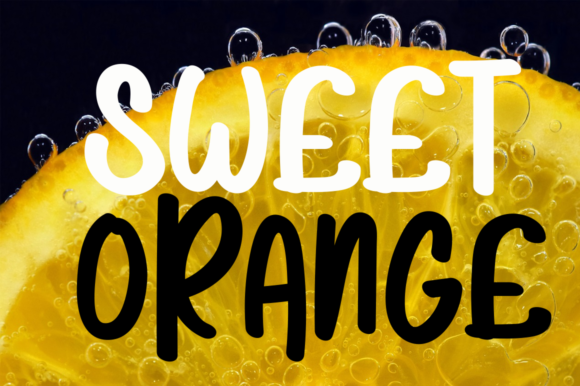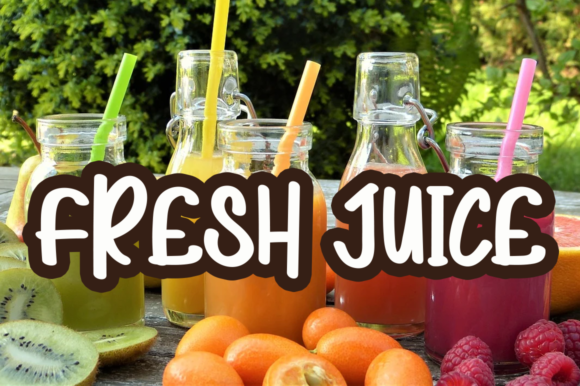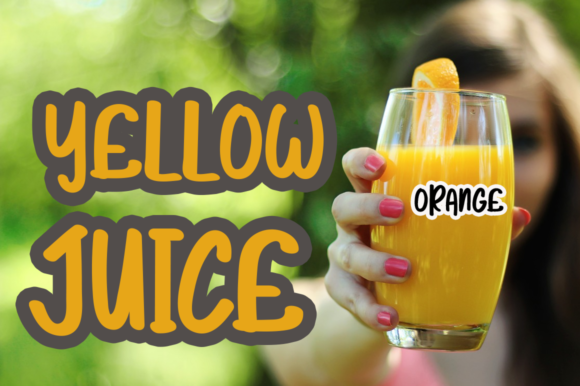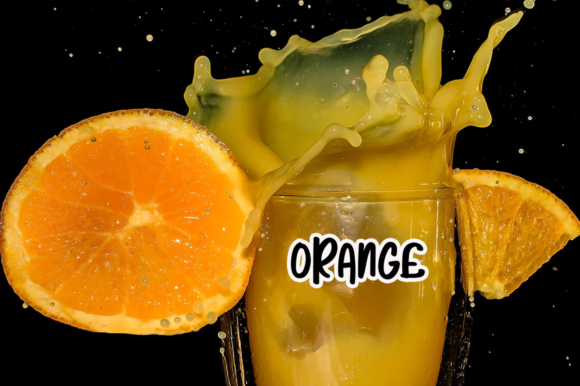
Discover the Refreshing Taste of Albania Juice Font
Have you ever stared at a blank page, feeling stuck and uninspired? That’s where the magic happens, and the right font can make all the difference. For me, it’s when the creative juices start flowing, and I stumble upon the perfect typography to bring my idea to life.
Enter the Albania Juice Font, a charming handwritten font that’s as relaxed as a summer afternoon. Designed to evoke a sense of natural simplicity, this font is perfect for adding a touch of personality to your designs. Whether you’re a seasoned designer or just starting out, the Albania Juice Font is a valuable addition to your toolkit, guaranteed to elevate your creations and leave a lasting impression.
Albania Juice Font Key Features
- Font Family: Albania Juice Font is a sans-serif font family with 4 styles: Light, Regular, Medium, and Bold.
- Language Support: Albania Juice Font supports a wide range of languages, including Latin-based languages, Cyrillic, and Greek.
- Unique Characteristics: Albania Juice Font features a unique blend of modern and traditional design elements, with a distinctive x-height and a range of subtle ligatures and swashes.
Albania Juice Font Review
Overall, I found the Albania Juice Font to be a unique and stylish addition to any design project. The font is a great blend of modern and traditional elements, making it perfect for creative projects.
- The font’s dynamic energy is contagious, making it perfect for projects that require a sense of movement and vitality.
- The elegant lines and rounded edges create a visually appealing and friendly atmosphere, ideal for branding and marketing materials.
- The font’s versatility allows it to be used in various contexts, from print to digital media, without losing its charm.
- The font may not be suitable for projects that require a professional, formal tone, as its playful nature may come across as unprofessional.
- The font’s uniqueness can sometimes make it difficult to read, especially at smaller font sizes or in low-resolution environments.
- The font’s style may not appeal to everyone, and some designers may find it too flashy or over-the-top.
The Albania Juice Font is a great choice for designers who want to add a touch of personality and whimsy to their projects. While it may have some limitations, its unique style and versatility make it a valuable addition to any design toolkit.
Tips for Getting the Most Out of Albania Juice Font
For best results, use Albania Juice Font in bold or italic styles to add emphasis to your text.
Experiment with different font sizes and colors to create a unique visual identity.
Albania Juice Font is ideal for use in creative projects, such as:
- Brand identity and logos
- Marketing materials and advertising
- Artistic and design projects
Alternatives to Albania Juice Font
Great Vibes Font is a modern, elegant script font perfect for creating a sophisticated and luxurious feel in your designs. It’s ideal for use in high-end branding, invitations, and other creative projects where a touch of class is needed. Great Vibes Font has a more refined and polished look compared to Albania Juice Font, making it suitable for a wider range of applications.
Dancing Script Font is a lively, handwritten script font that’s great for adding a playful touch to your designs. It’s perfect for use in projects that require a fun and carefree vibe, such as social media graphics, blog posts, and children’s products. While Albania Juice Font has a more quirky and offbeat feel, Dancing Script Font is more energetic and dynamic.